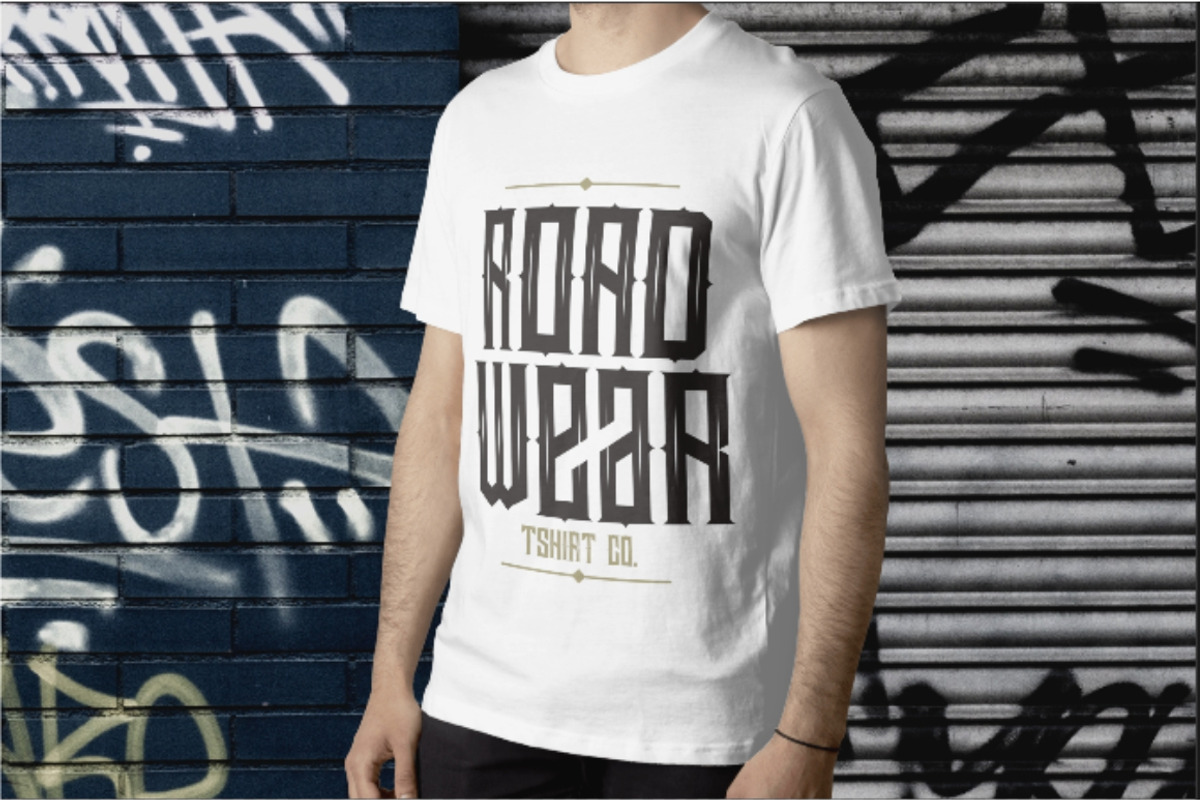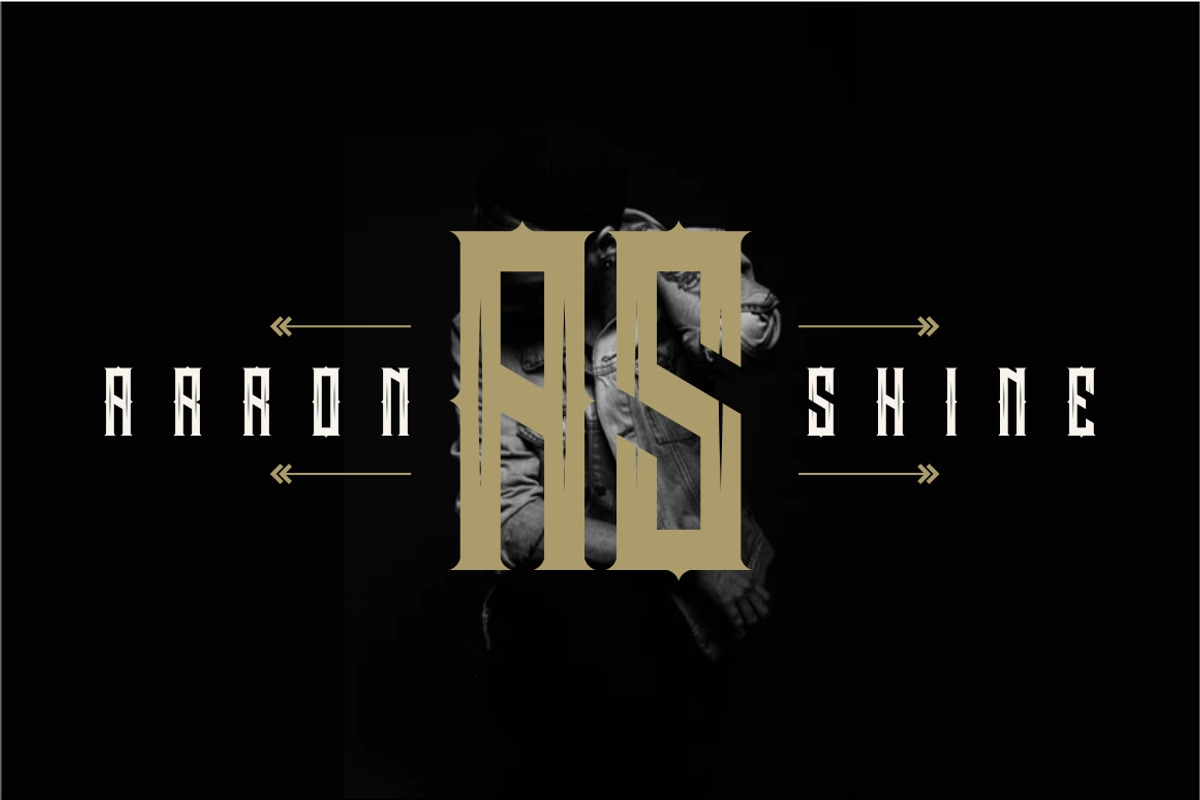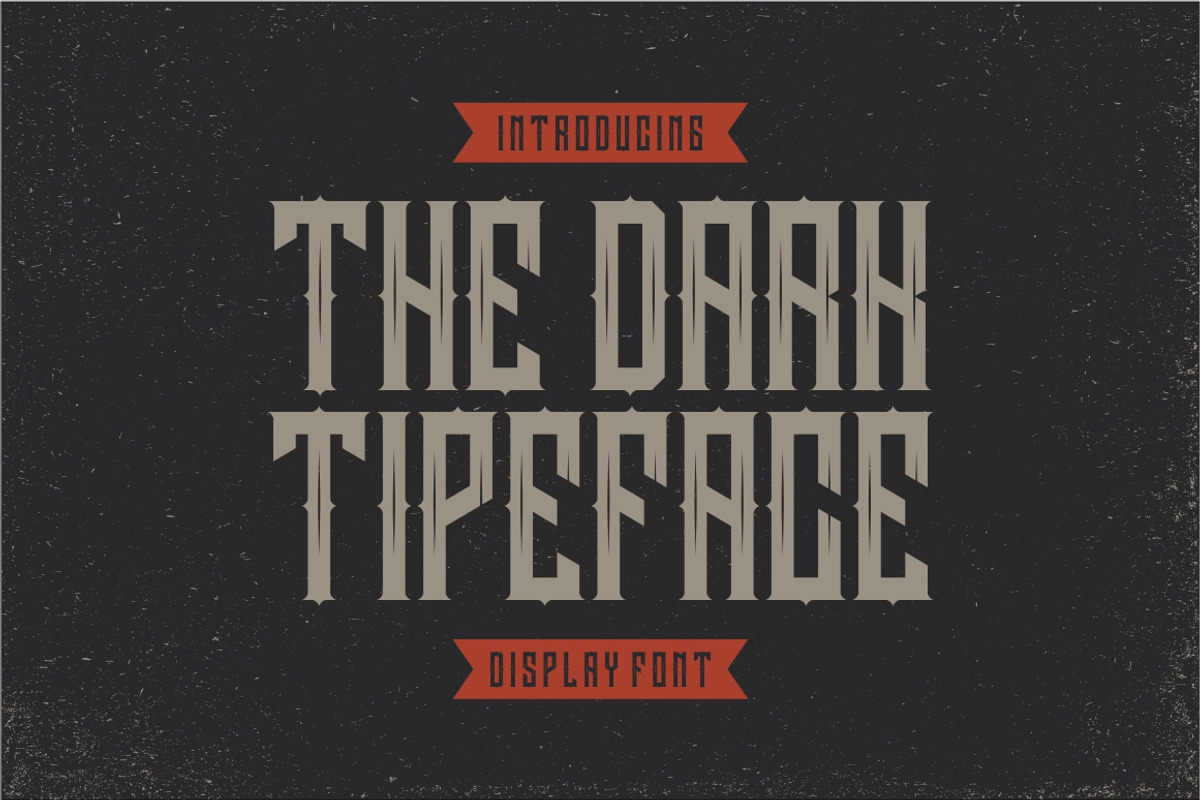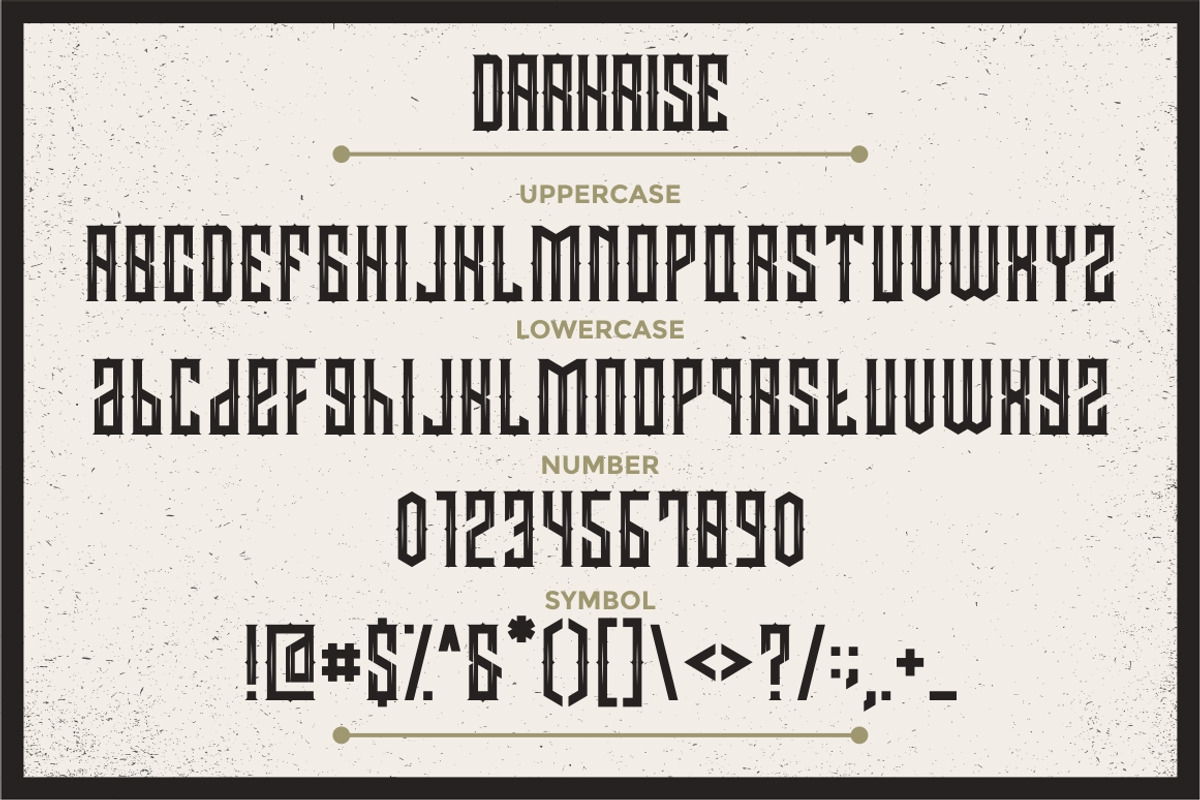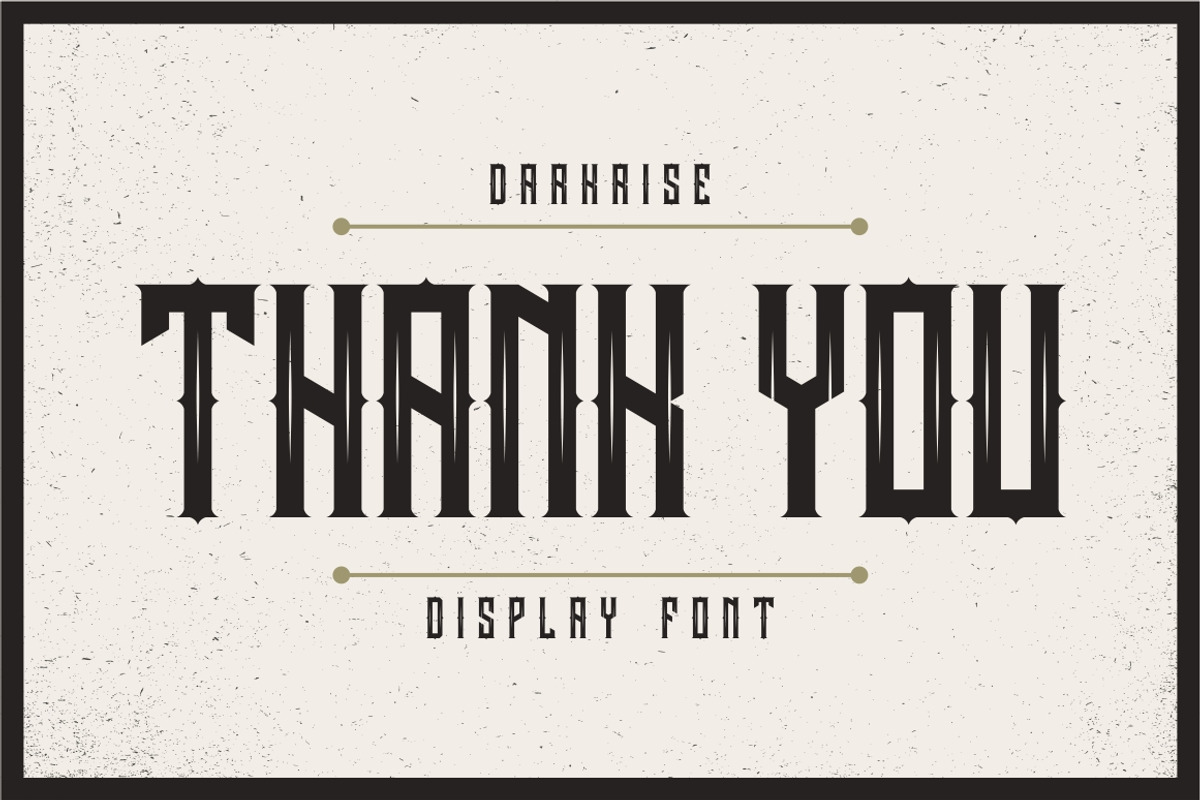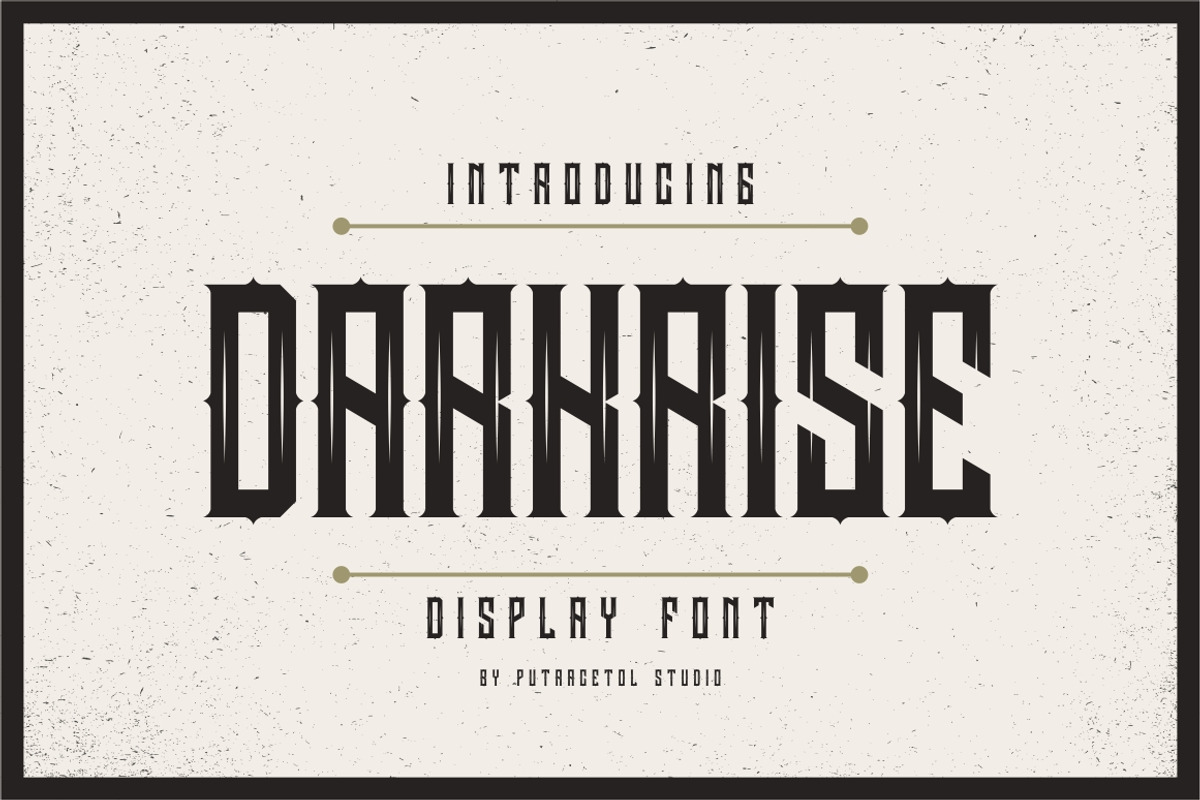
Darkrise Typeface
DARKRISE inspired by some classic typeface and biker style with sharp edge. Dynamic, metal and bold, This typeface is great for logos, tittle, headline, label, tshirt, poster, etc.
Why Darkrise Typeface is worth a look
Darkrise Typeface by PutraCetol Studio fits naturally into Branding, posters, packaging, typography.